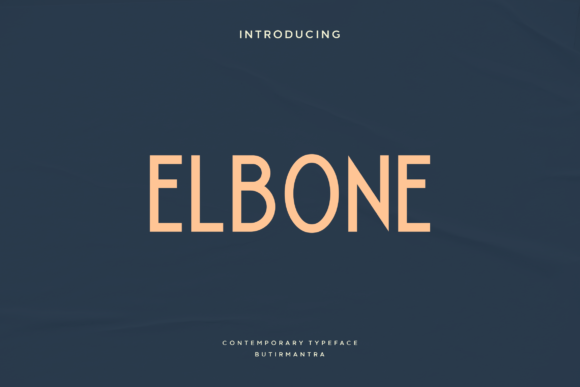
Introducing Elbone Font, the epitome of modern elegance in the world of typography. A sans-serif masterpiece crafted by the skilled hands of garismantra, Elbone is more than just a font; it's an experience. Step into a realm of boundless creativity, where your words take on a life of their own, captivating audiences and leaving an indelible mark.
With its clean lines, minimalist aesthetic, and unwavering legibility, Elbone Font transcends the ordinary, transforming your designs into works of art. Whether you're a seasoned designer or just starting your creative journey, Elbone is your perfect companion, guiding you effortlessly towards stunning results.
Dive into a world of endless possibilities, where Elbone Font becomes your secret weapon. Craft logos that exude sophistication, headlines that demand attention, and body text that flows seamlessly, inviting readers on an immersive journey through your content.
Unlock the power of versatility with Elbone Font. Its adaptability knows no bounds, seamlessly blending into any project, from sleek branding materials to captivating social media graphics, from professional presentations to personal passion projects. Let Elbone be your artistic compass, guiding you towards creative horizons you never thought possible.